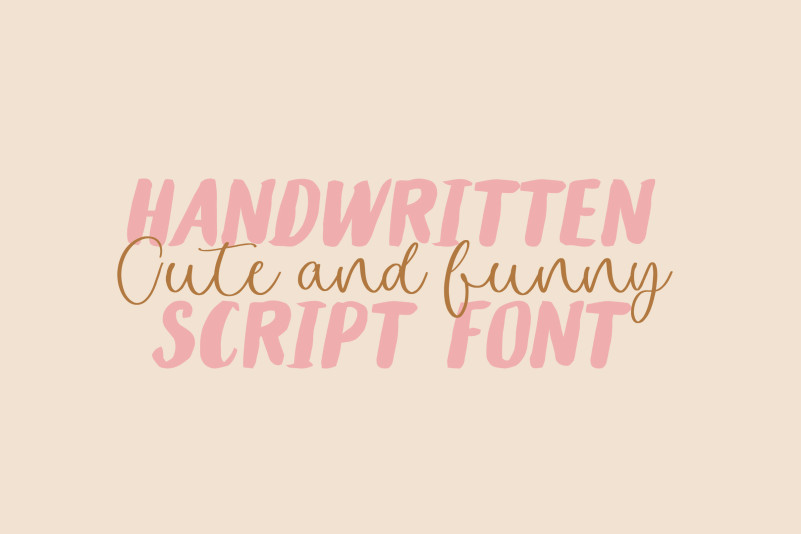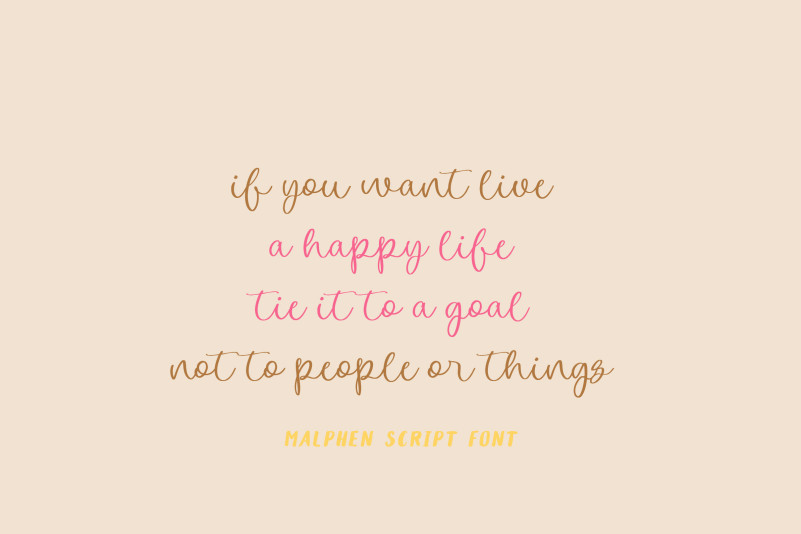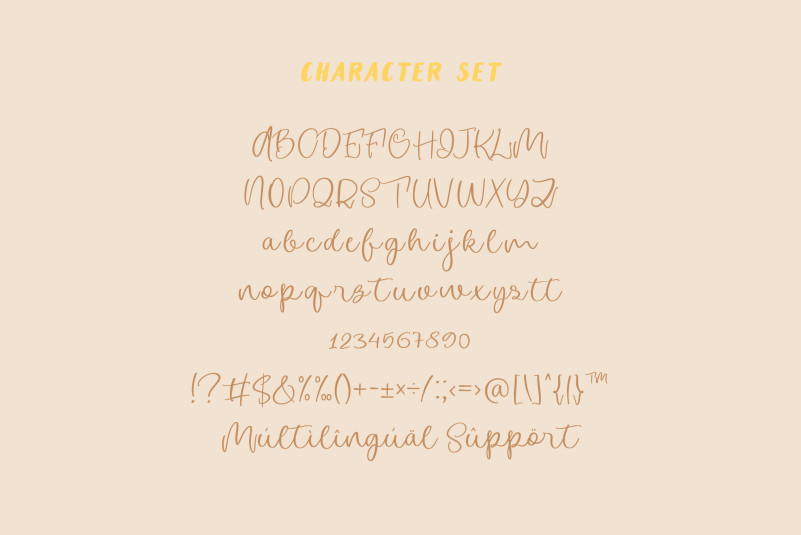
Malphen Font
Malphen’s graceful design features delicate, flowing lines and intricate, hand-drawn flourishes that evoke a sense of romance and refinement. Perfect for wedding invitations, high-end branding, and other sophisticated designs.
– Uppercase, Lowercase, Numeral & Punctuation
– Alternate Letters, Ligature & Swash/Tail
– Multilingual & PUA Encoded